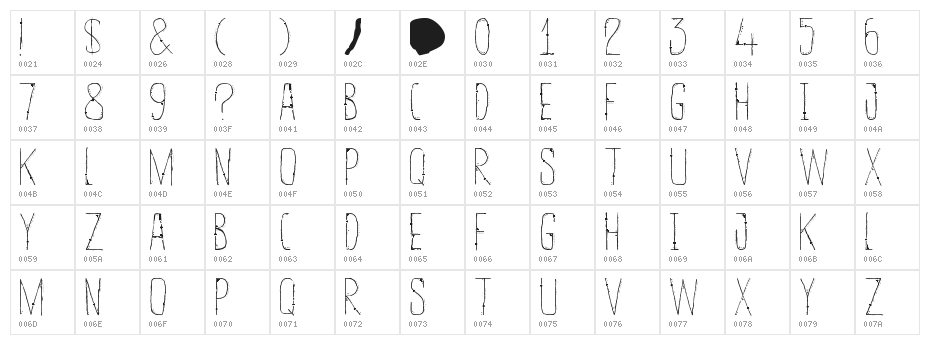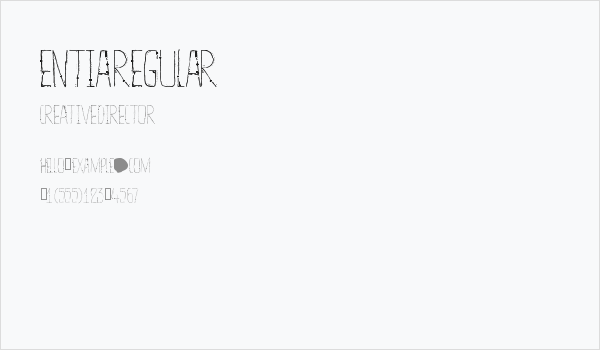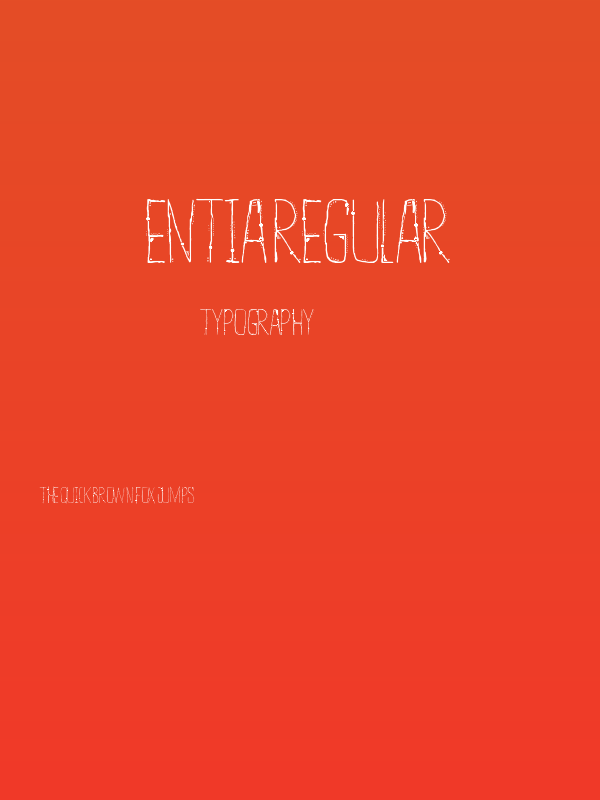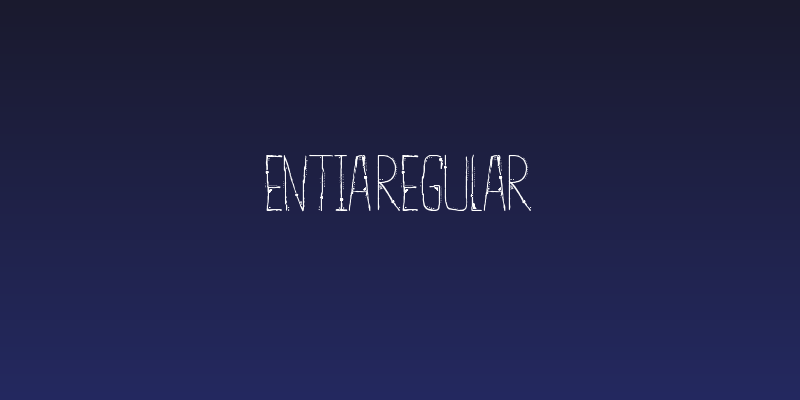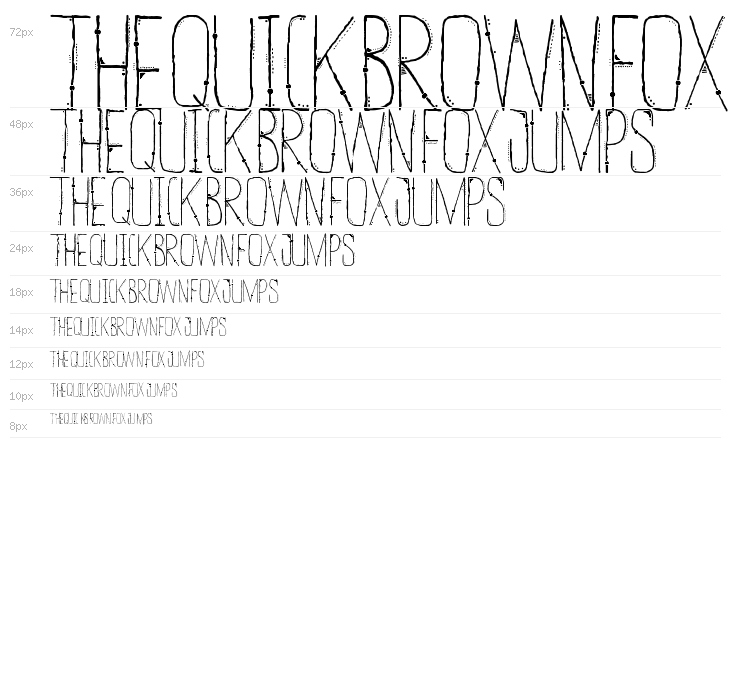
ENTIA Regular Font
ENTIA Regular Description
This font features a unique and artistic design, characterized by its thin, elongated letterforms with irregular, sketch-like outlines. Each character appears hand-drawn, with a playful yet sophisticated style that includes subtle imperfections and varying line thicknesses. The uppercase and lowercase letters maintain a consistent height, creating a harmonious flow across text. Numbers and special characters follow the same aesthetic, ensuring a cohesive look. The font's distinctive appearance makes it ideal for creative projects that require a touch of individuality and flair.
| Overall Style | Artistic |
| Proposed Projects | Ideal for artistic projects, branding, invitations, and any design requiring a unique, handcrafted feel. |